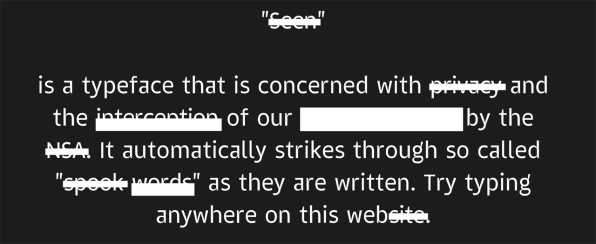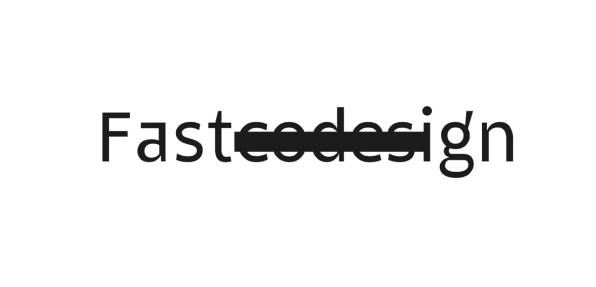
In a post-privacy age, everyone has to acknowledge that they could be under surveillance by the government. “Seen” is a new computer font by Emil Kazole that lets you know in real time if what you’re typing is likely to make the NSA’s surveillance antenna twitch. How? By using ligatures to cross out verboten words that typically make NSA computers take notice.
In computer typography, ligatures are a wonderful little invention. They’re little cheats that tell a computer to render two or more characters placed next to each other in a different way; for example, to render ‘a’ and ‘e’ as an æ when they are next to each other. Most of the time, your favorite fonts use ligatures in such a way that you barely notice them, subtly adjusting the letters you’re typing to optimize them for beauty and readability. But in the hands of more adventurous font designers, ligatures can be almost magical, allowing you to recreate the idiosyncratic handwriting of Sigmund Freud or make a data visualization in a word processor.
In the case of the Seen typeface, ligatures are used to automatically censor words on the NSA’s “spook word” list—a list which, incidentally, is pretty weird in its own right, encompassing not just words like “Guantanamo,” “CIA,” “Illuminati,” and “panopticon,” but seemingly commonplace words like “basement,” “birthday,” “blackjack,” and “blowfish.” These words are part of an NSA Prism database of terms originally leaked by Edward Snowden in 2013 that are used like a surveillance scoring system by government spy agencies. As the NSA is watching your email, messages, or chat logs, the more of these words you use, the more the NSA is likely to subject you to scrutiny. (Hi, spooks!)
The point of the Seen font is to get people thinking about the privacy implications of what they are writing, as they are writing. That email you send your buddies suggesting Beef Wellington for dinner and then a little blackjack in the basement? It’s a potential minefield of NSA spook words that could send agents kicking down your door, if you use enough of them.